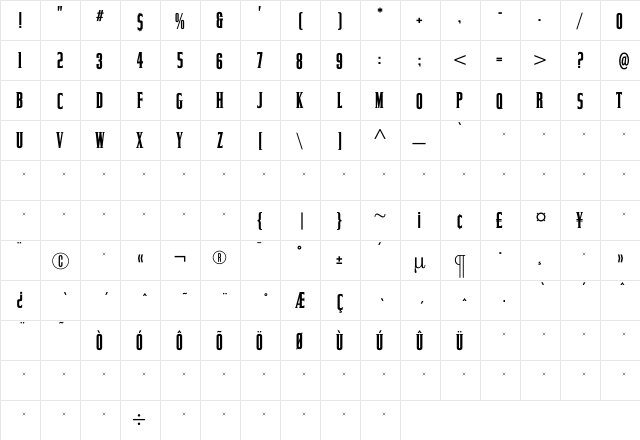
CommanderBold Regular
Design Context for CommanderBold Typeface
CommanderBold offers clean, dependable letterforms without strong stylistic allegiance, making it a practical choice for designers who need flexibility. The heavy weight commands attention and anchors typographic hierarchies.
Pro Tip: Use CommanderBold in both headline and body roles to test its range before committing to a single application.